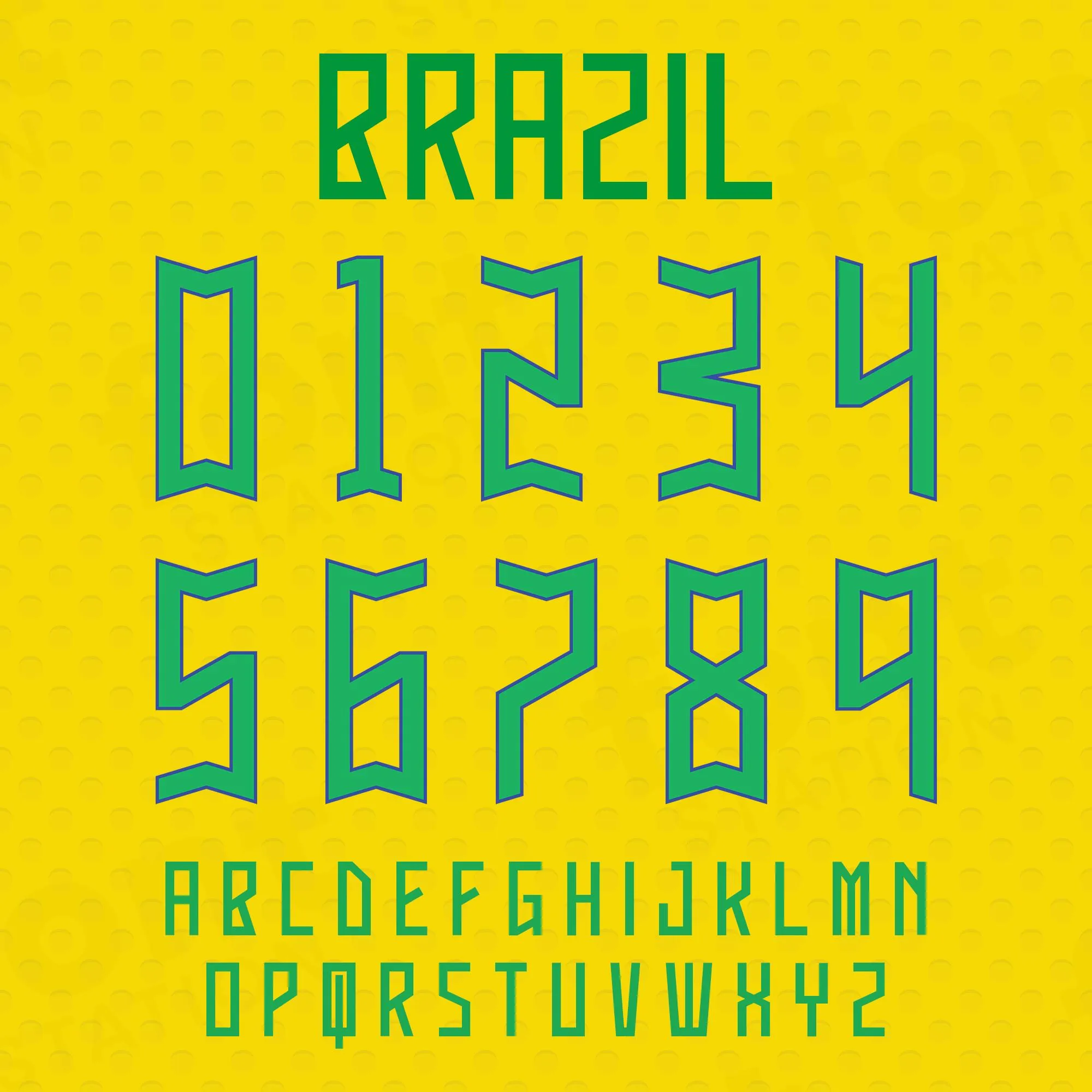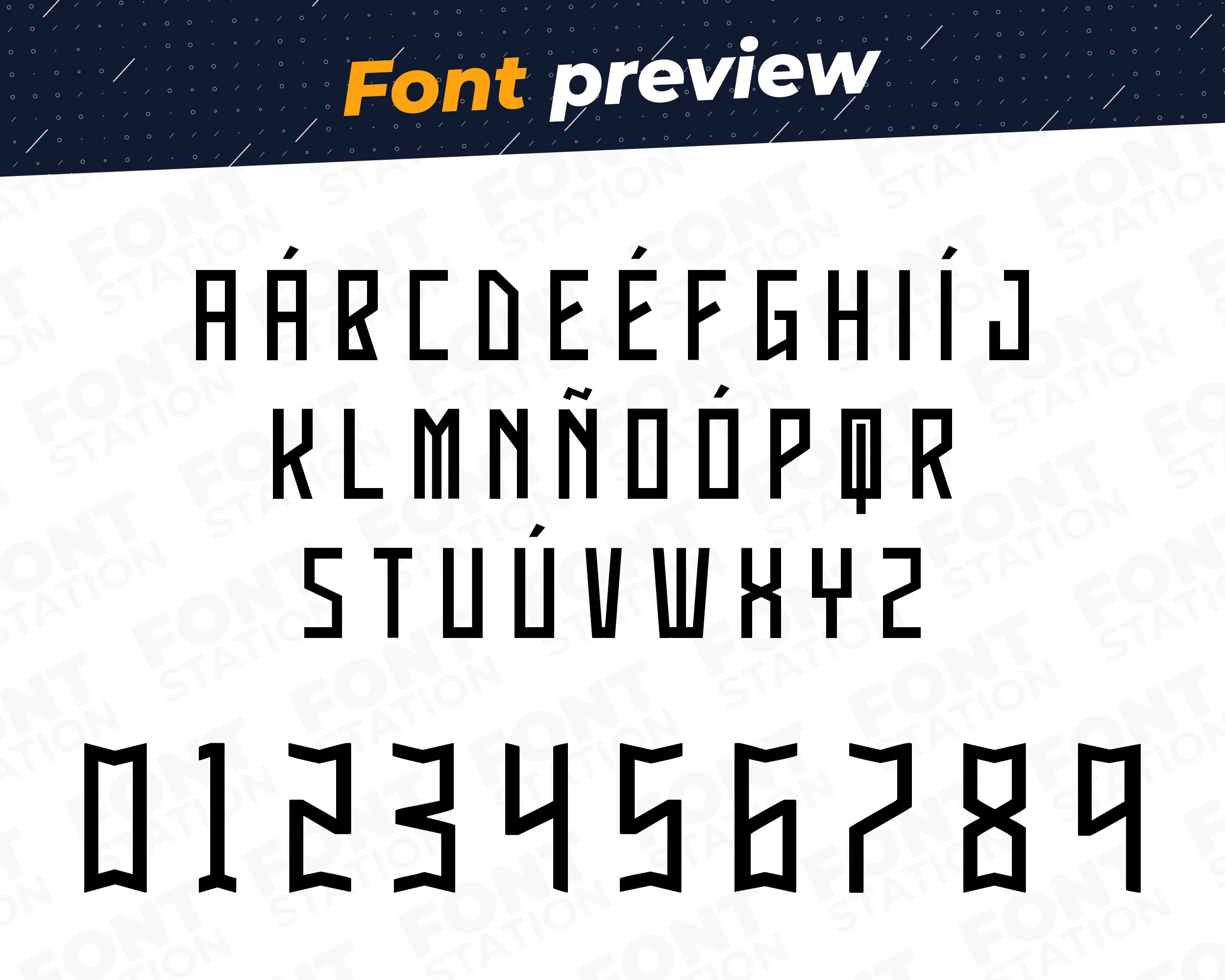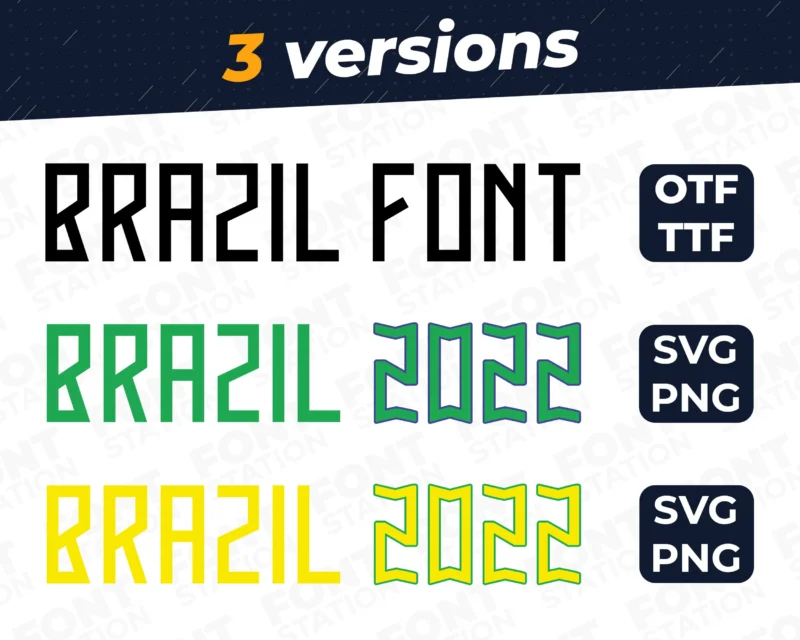
Our Brazil Football Team typeface, inspired from the official Brazil Jersey font from the World Cup 2022
Grab your computer, tablet or other device and start creating right now with our Brazil Jersey font letters! Our Brazil World Cup typography is inspired from Brazil Jersey Football font, making it ideal for various digital creations (logo, word…), sublimation, cake toppers, stickers, event decorations, and more.